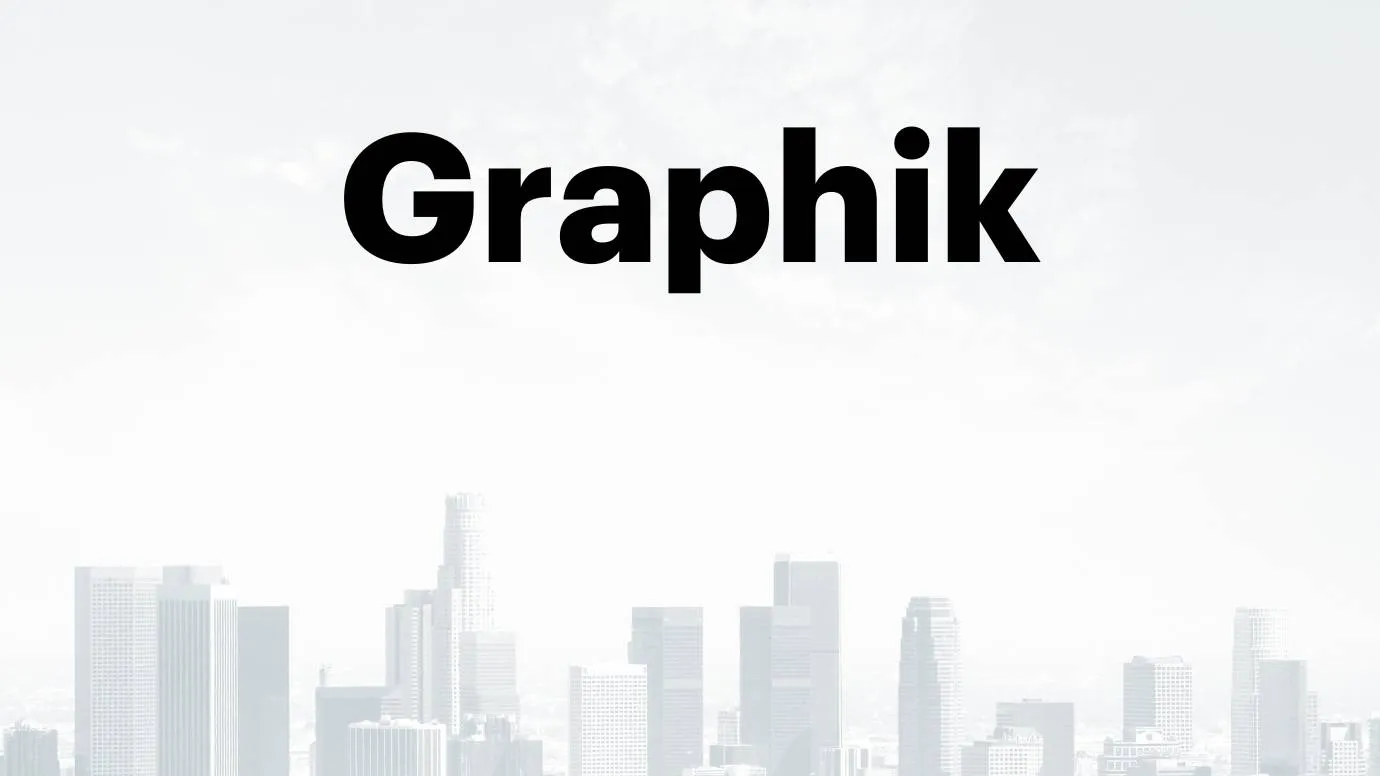
Graphik was designed in 2009 by Christian Schwartz. This font family has been inspired by Kollektif font that is another vintage sans-serif typeface.
Many designers and corporations adopted this font because of its huge number of styles and weights. It has 20 styles and comes in 8 weights including Regular, Bold, Italic, Light, Medium, Ultra, Heavy and Thin.